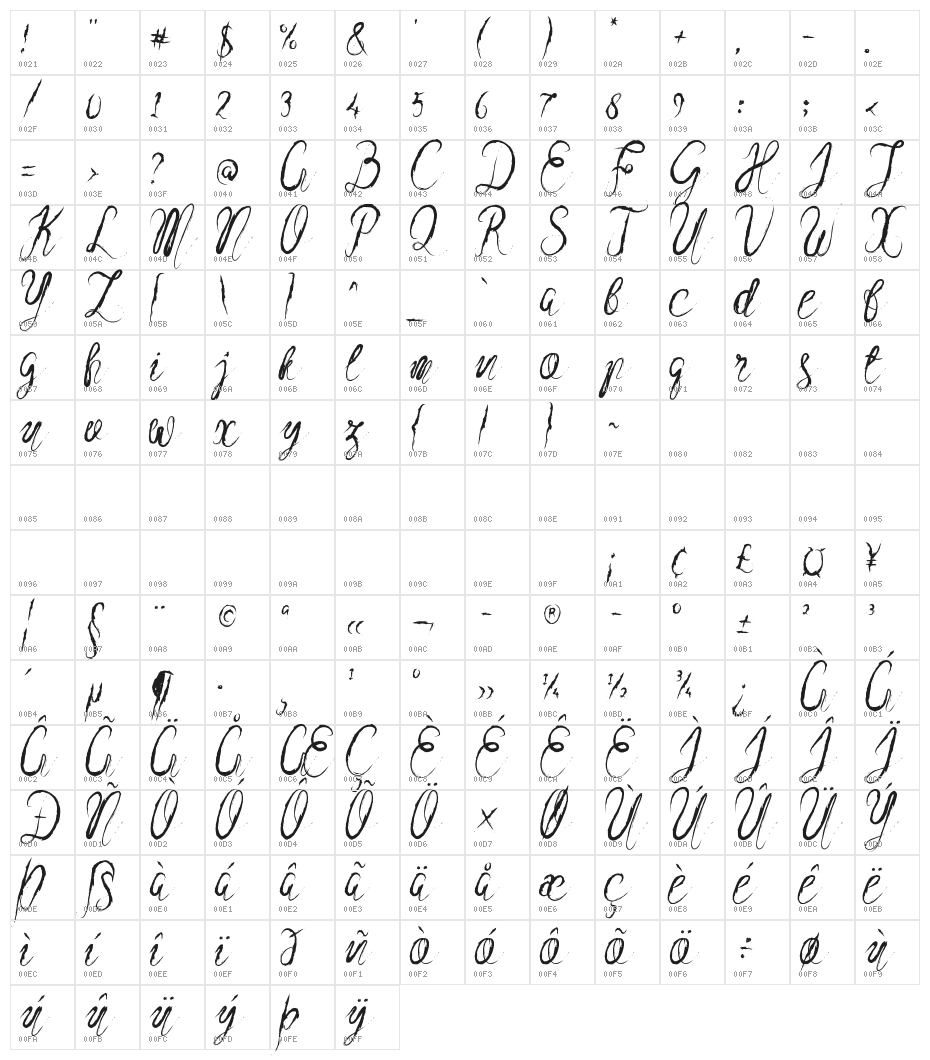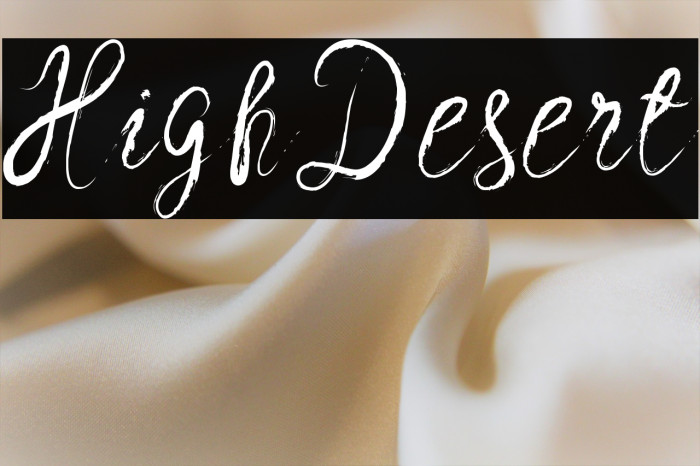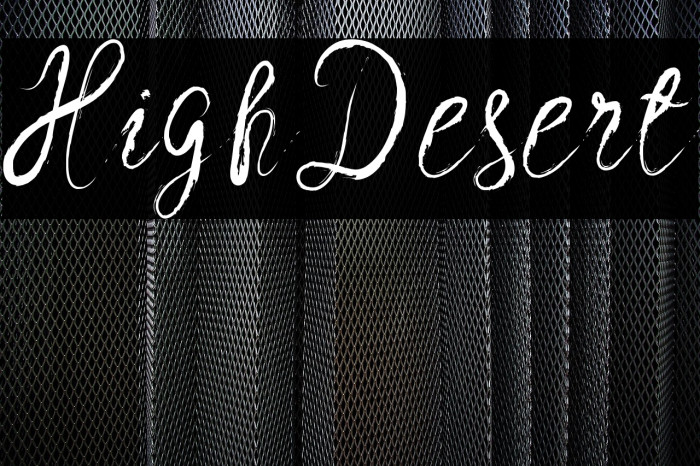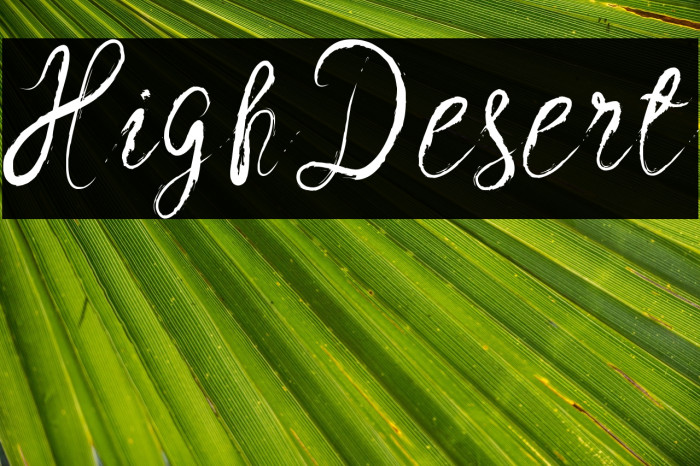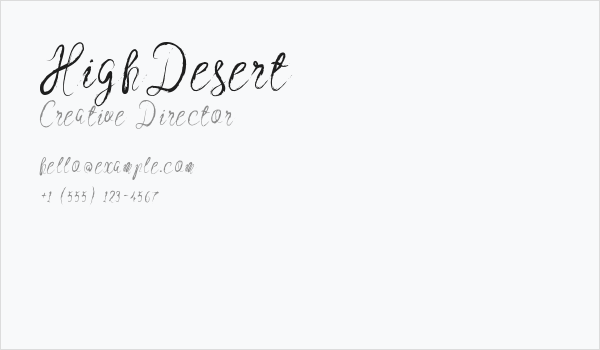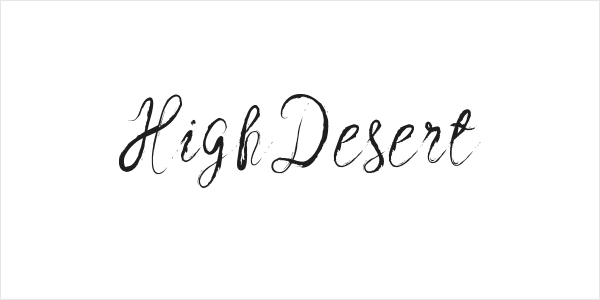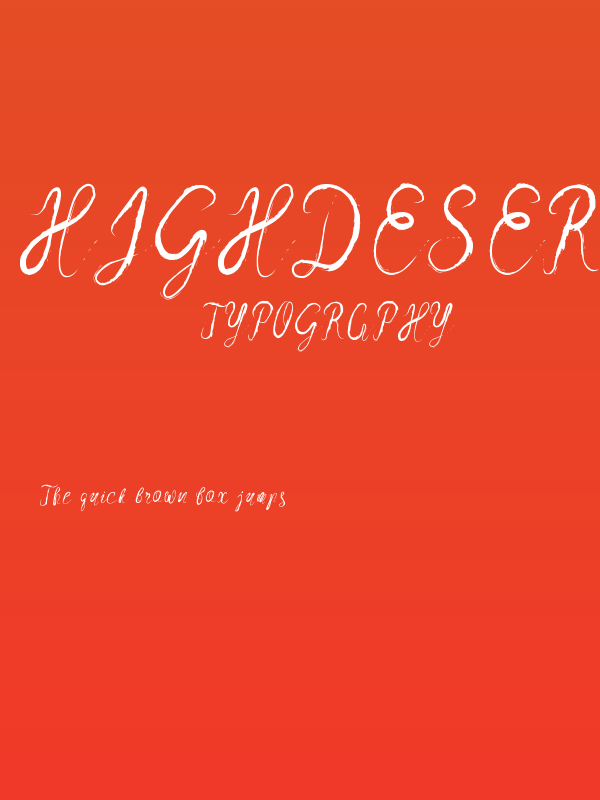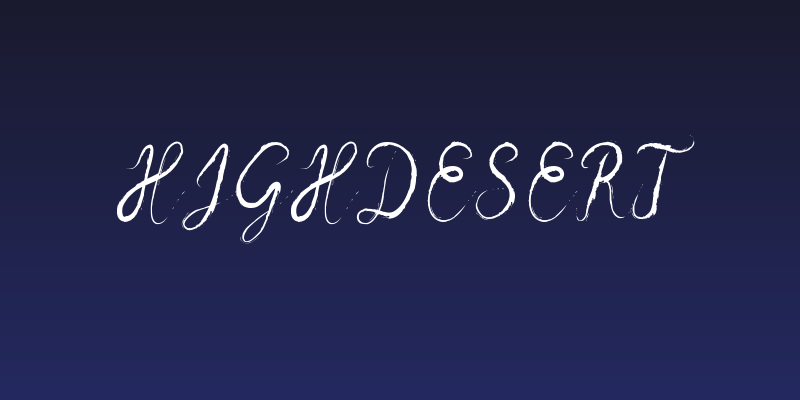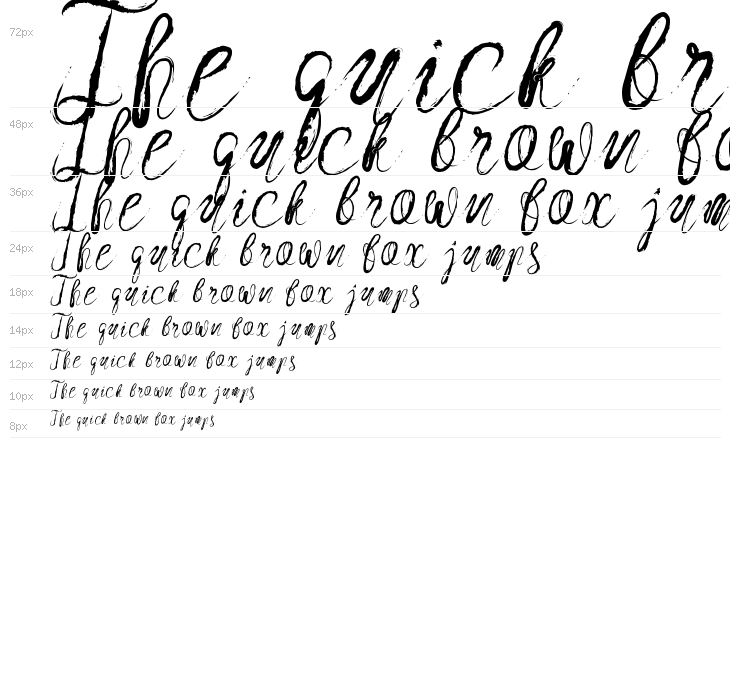
HighDesert Font
HighDesert Description
This font features a dynamic and expressive script style, characterized by its fluid, cursive strokes and a hand-drawn appearance. The letters are elegantly connected, with a natural flow that mimics handwriting. The uppercase letters are slightly more ornate, while the lowercase letters maintain a consistent rhythm. The numbers and special characters follow the same stylistic cues, ensuring a cohesive look across all elements. The font's brush-like texture adds a sense of movement and energy, making it ideal for creative and artistic projects.